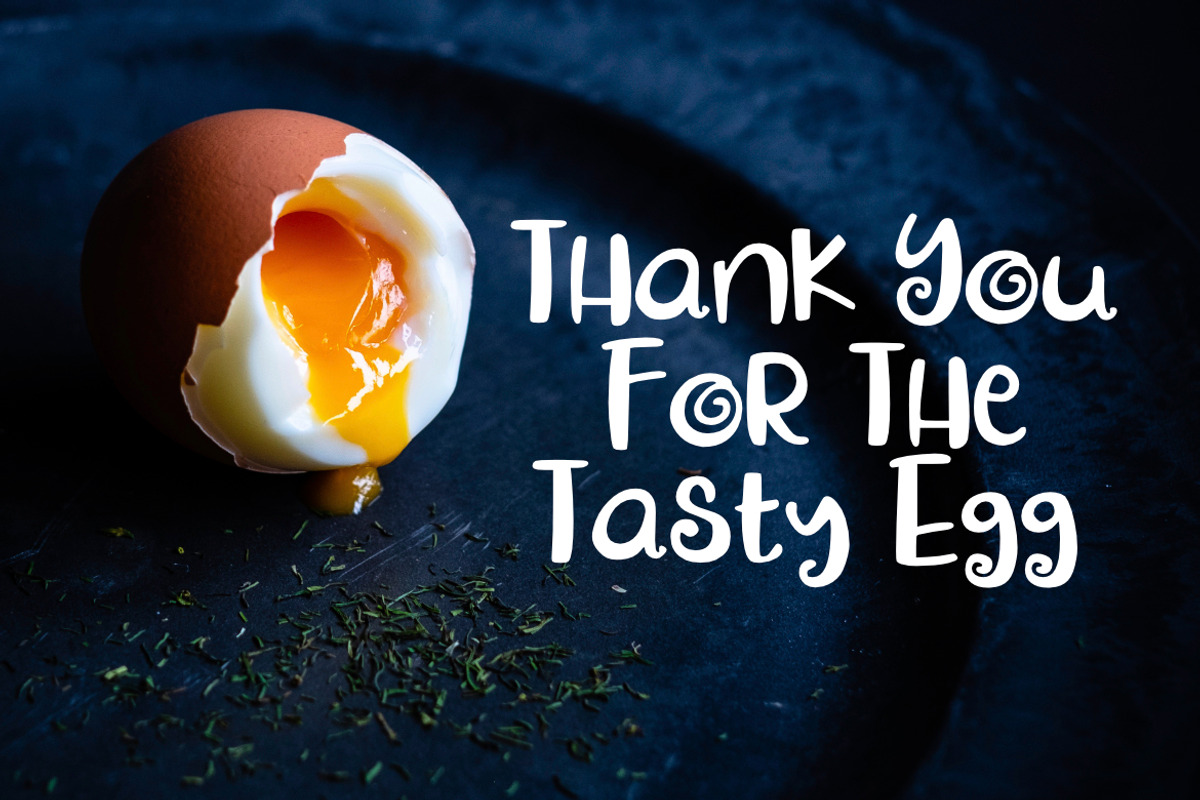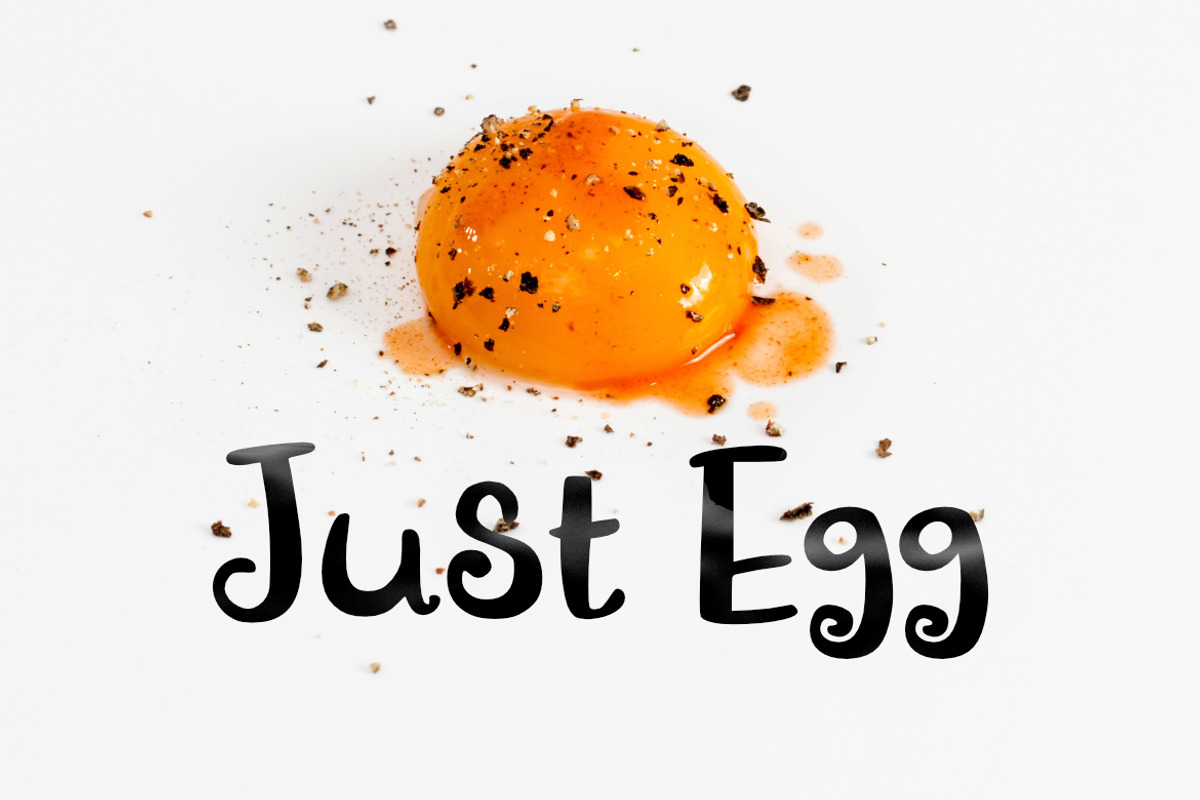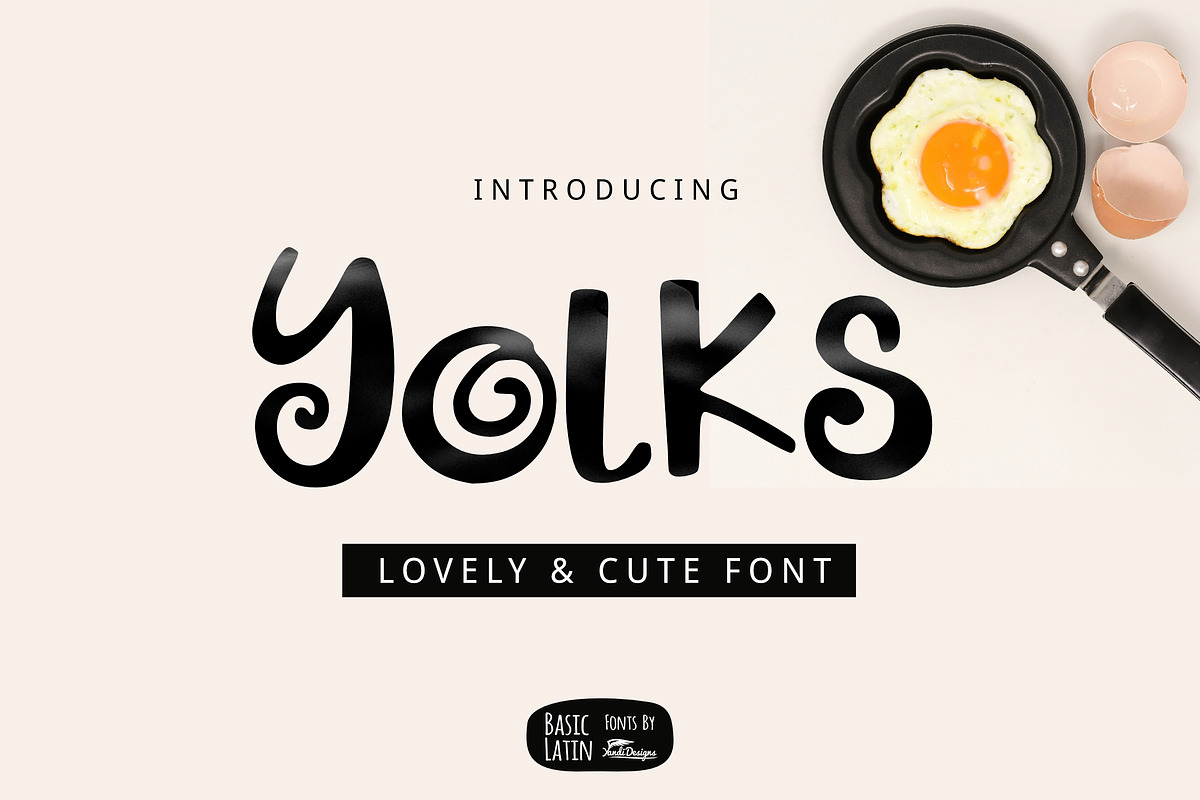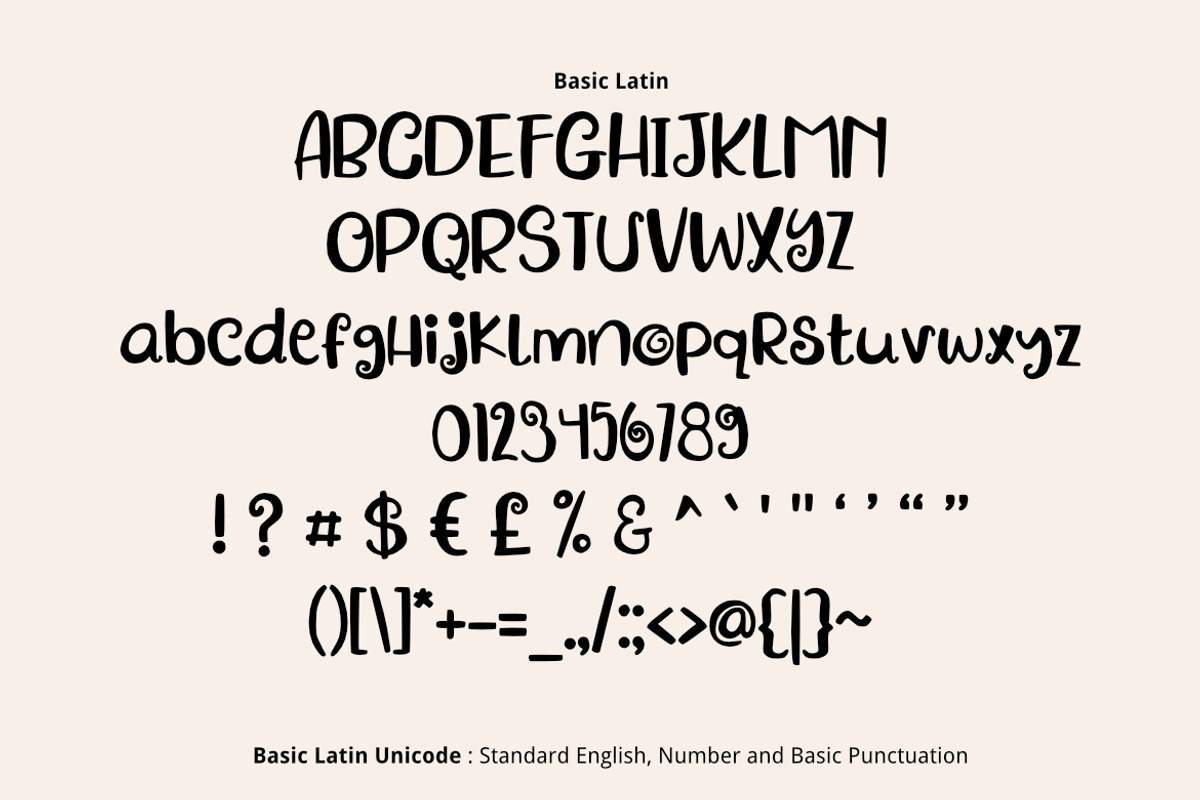
Yolks Tasty Font
Yolks Font is simple cute multipurpose handmade font, suitable for many project children book, quotes, logo , heading , title etc.
Why Yolks Tasty Font is worth a look
Yolks Tasty Font by YandiDesigns fits naturally into Branding, posters, packaging, typography.